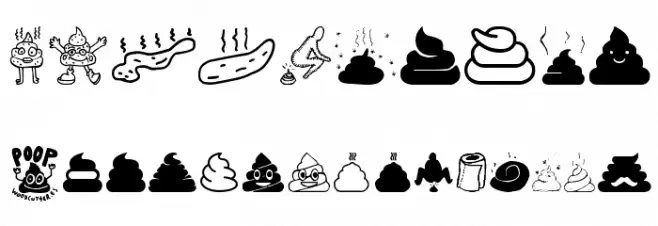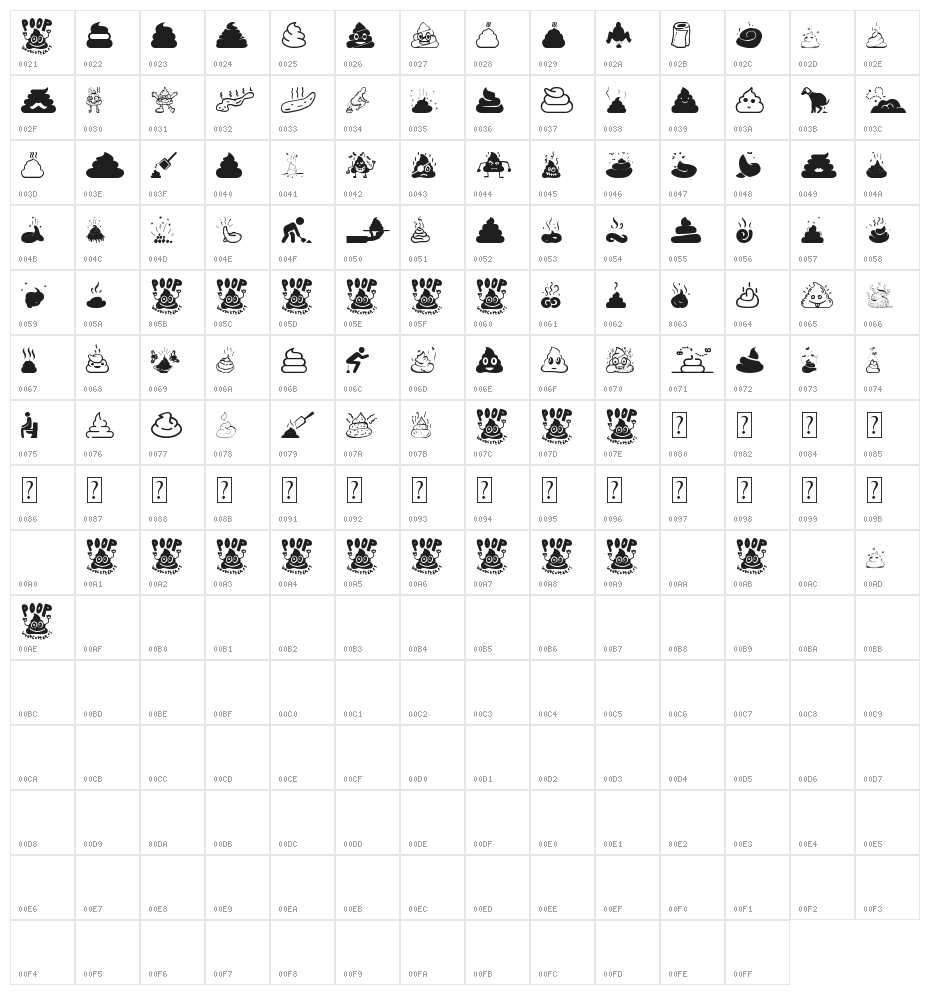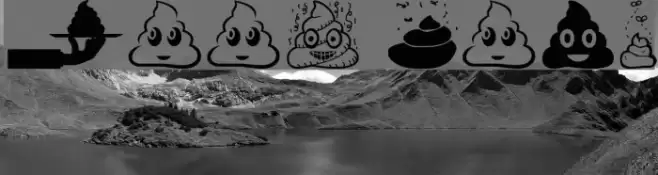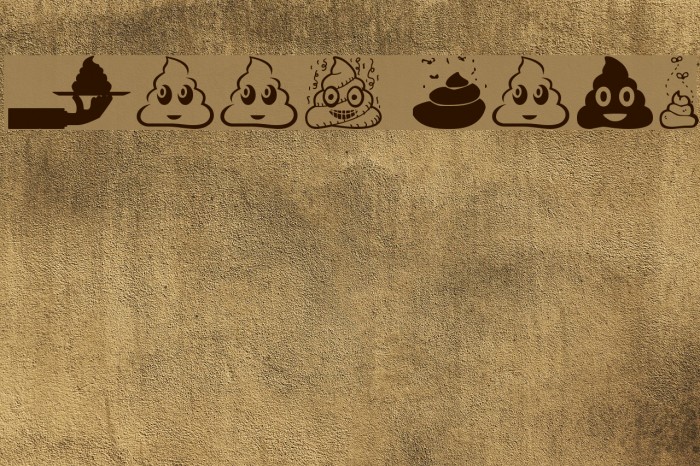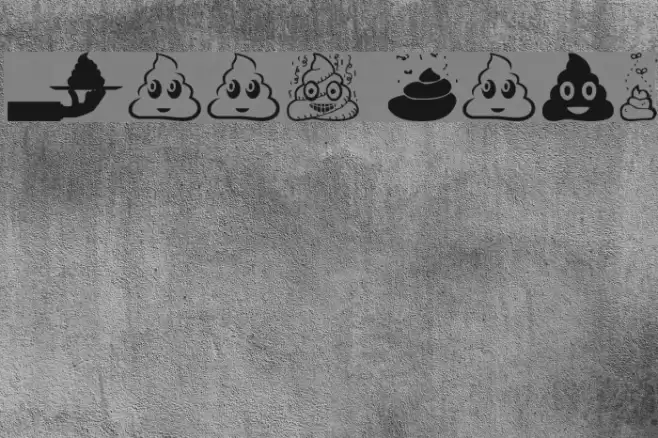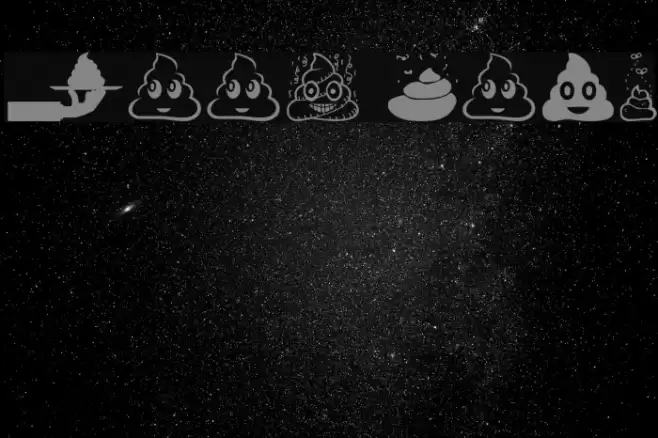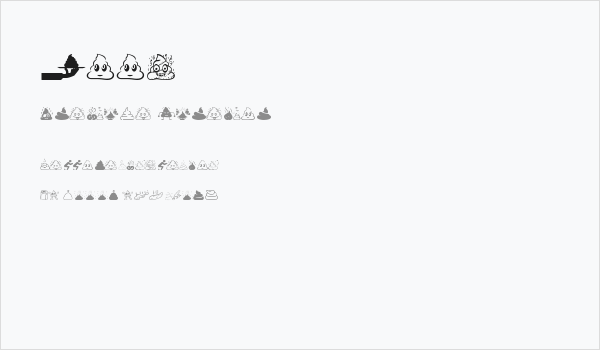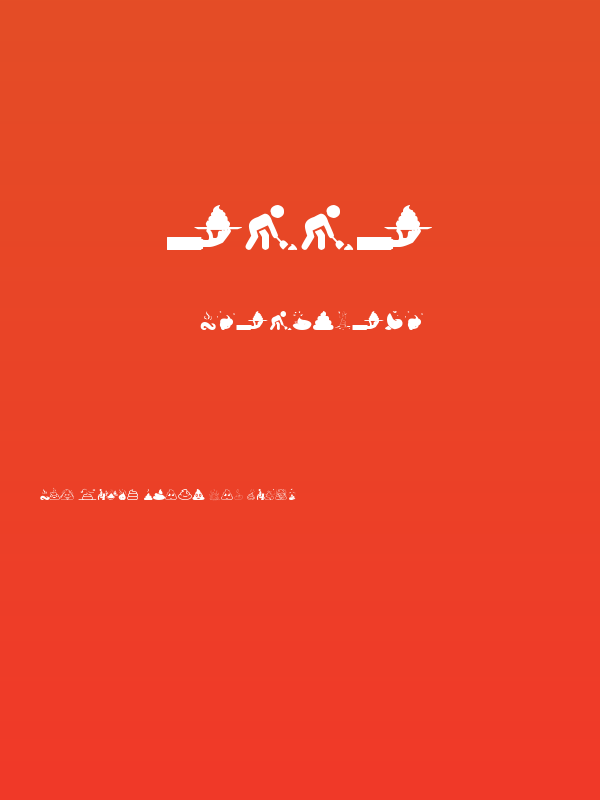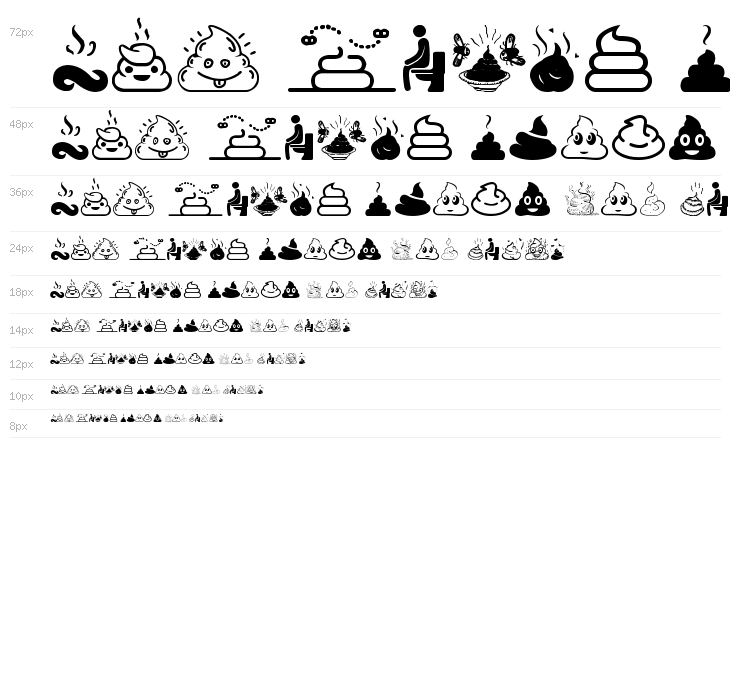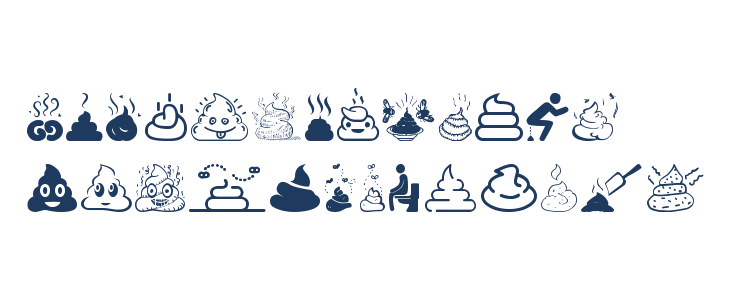
Poop Font
Poop Description
A playful, decorative dingbat font featuring a wide variety of cartoonish and stylized poop icons, some with faces, accessories, or humorous elements, rendered in bold black outlines with occasional details like steam, flies, or toilet paper.
| Overall Style | Playful, Humorous, Decorative |
| Use Case | Icons, Decorative elements, Stickers, Posters |
| Proposed Projects | ChildrenΓ’β¬β’s books, novelty greeting cards, gag gifts, humorous posters, emoji stickers, playful branding. |